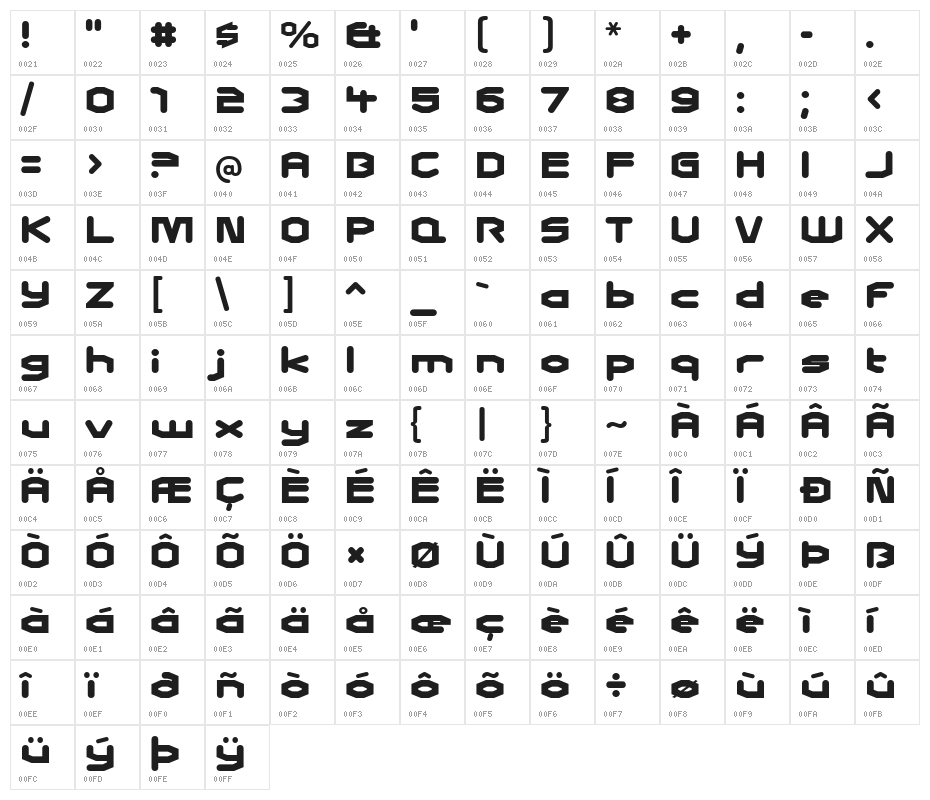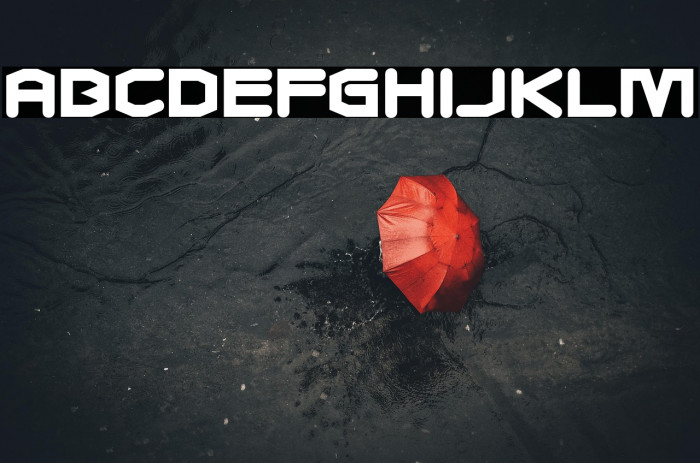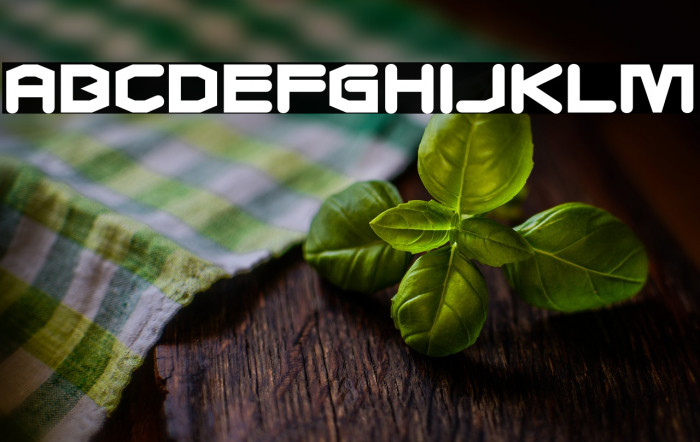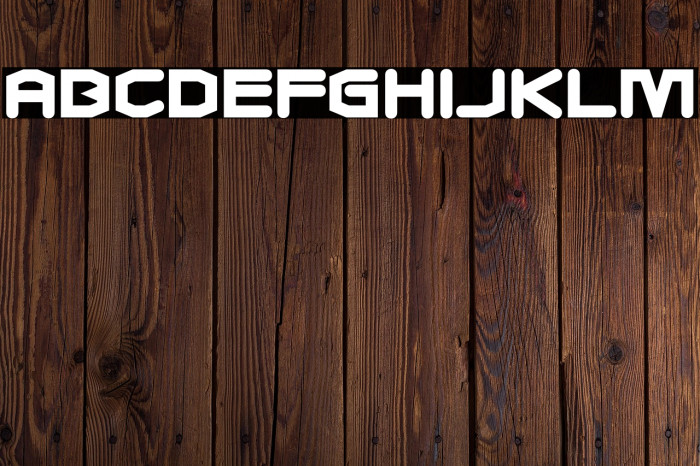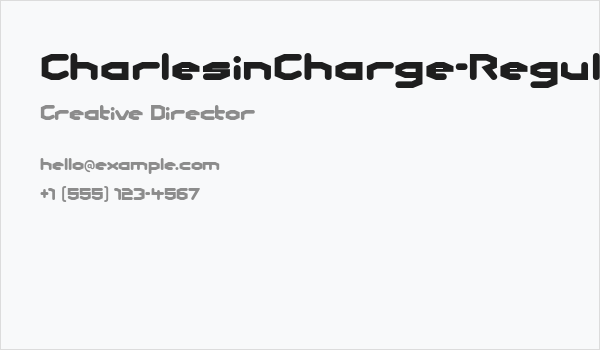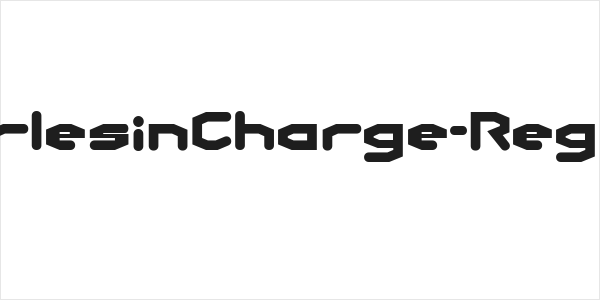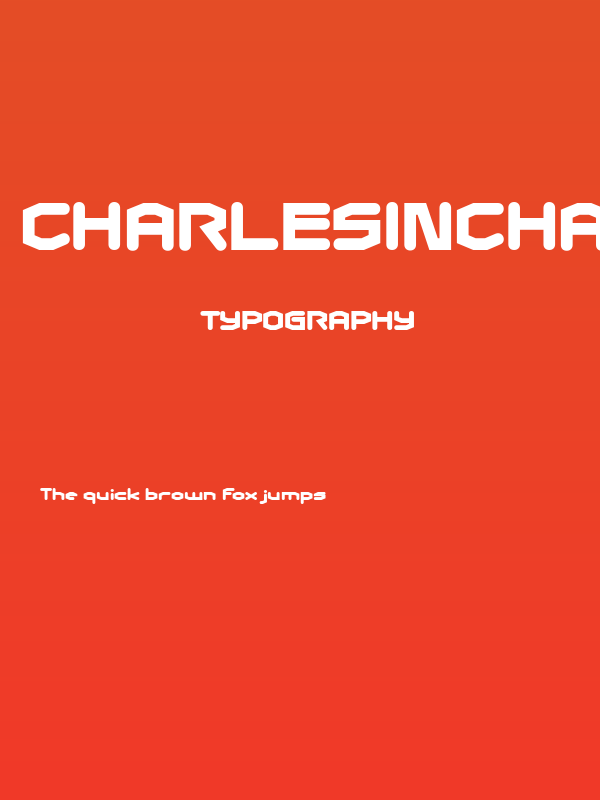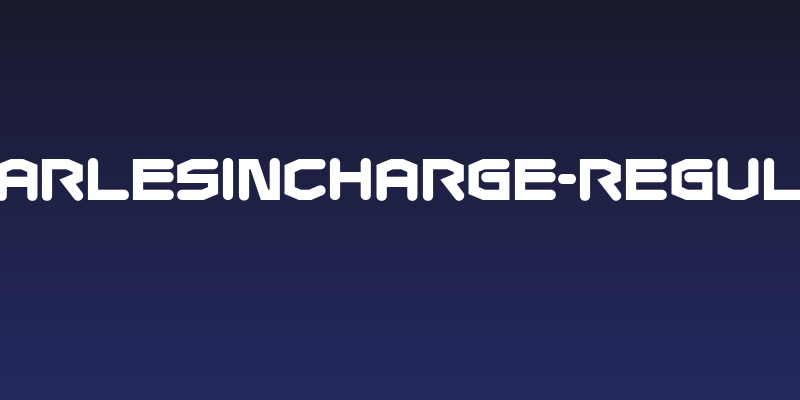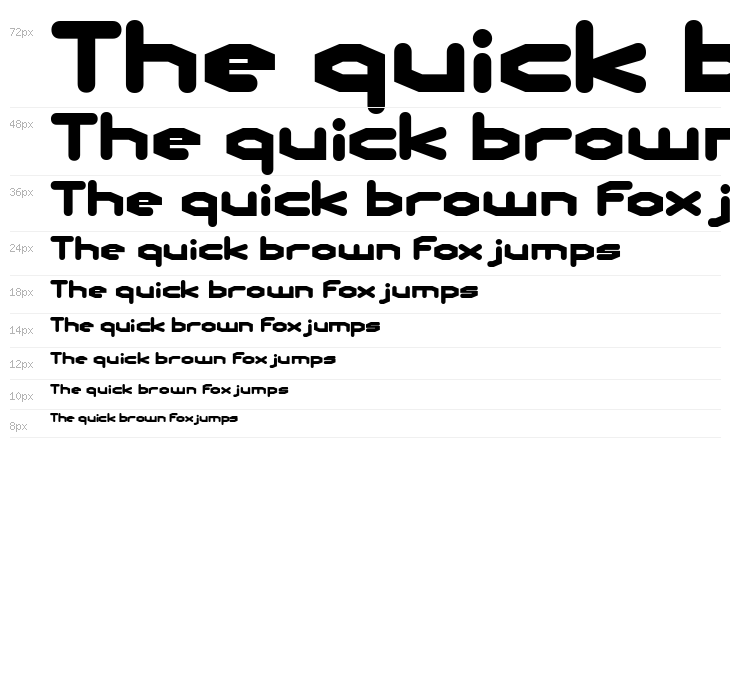
CharlesinCharge-Regular Font
CharlesinCharge-Regular Description
This font features a bold, geometric design with a futuristic and modern aesthetic. The characters are constructed with thick, uniform strokes, giving them a strong presence. The angular shapes and sharp edges create a sense of precision and technology. The uppercase and lowercase letters maintain a consistent style, with rounded corners that soften the overall look. Numbers and special characters follow the same design principles, ensuring a cohesive appearance across all elements. This font is ideal for projects that require a bold and impactful visual statement.
| Proposed Projects | Ideal for technology branding, sci-fi themed designs, video game interfaces, and modern posters. |